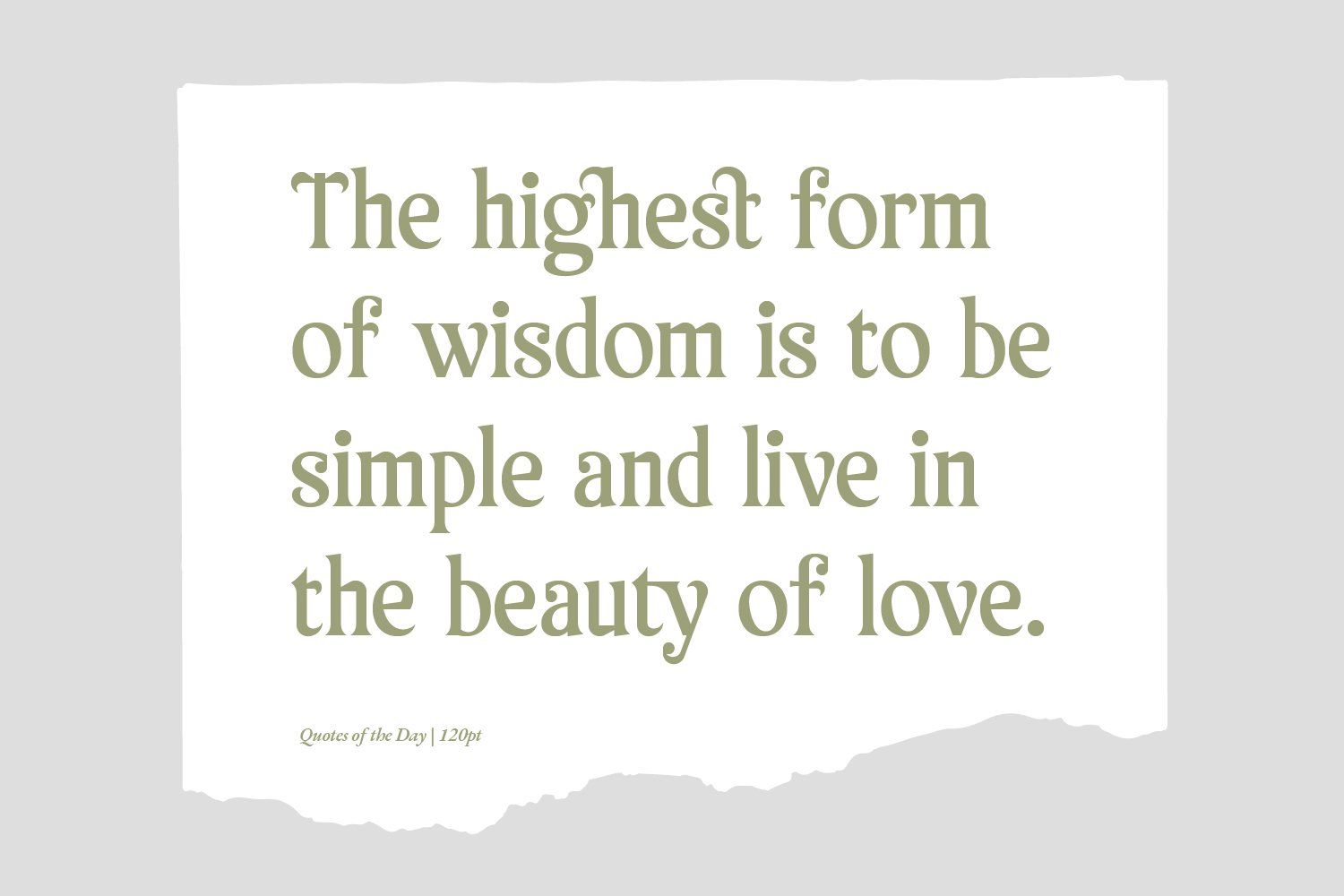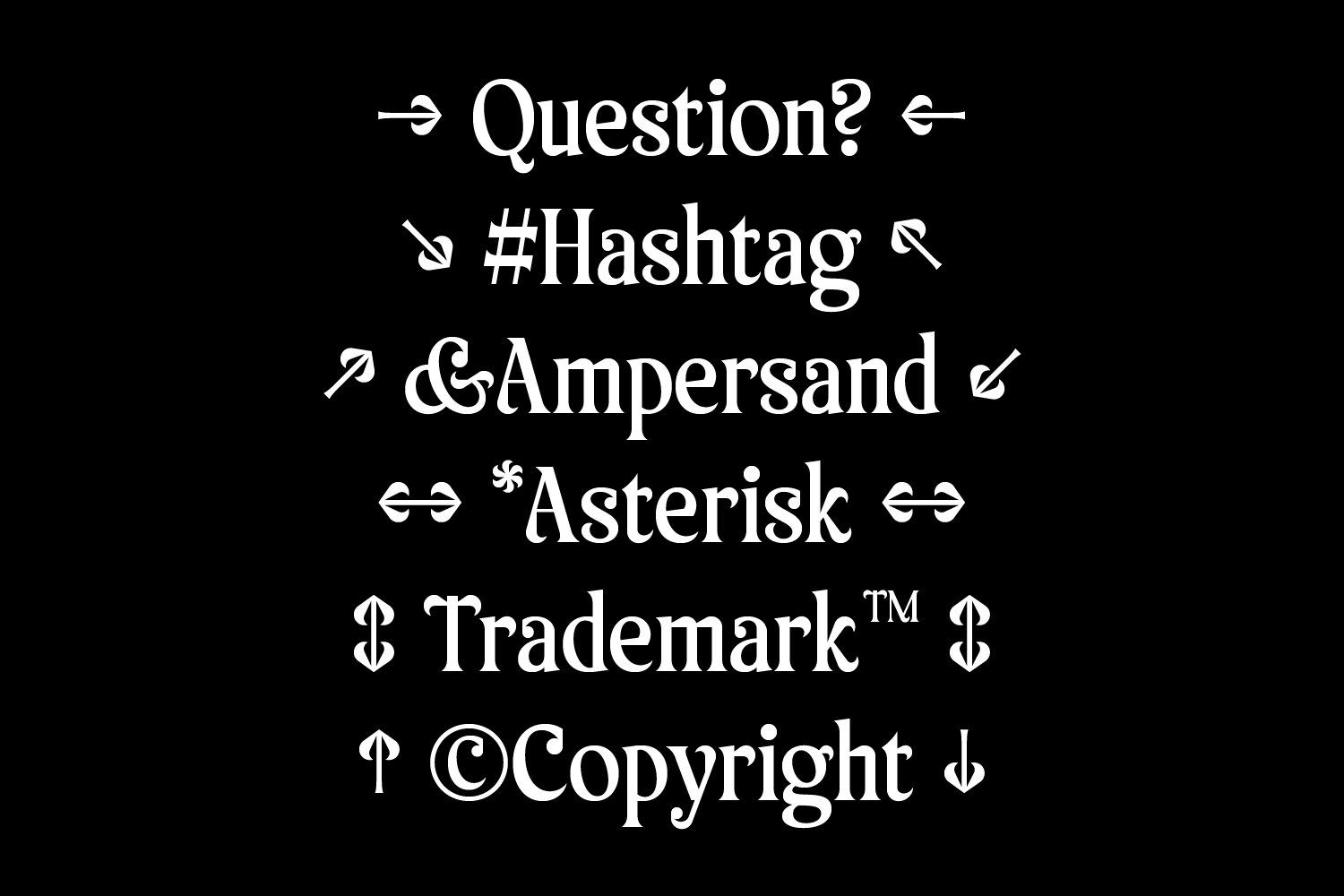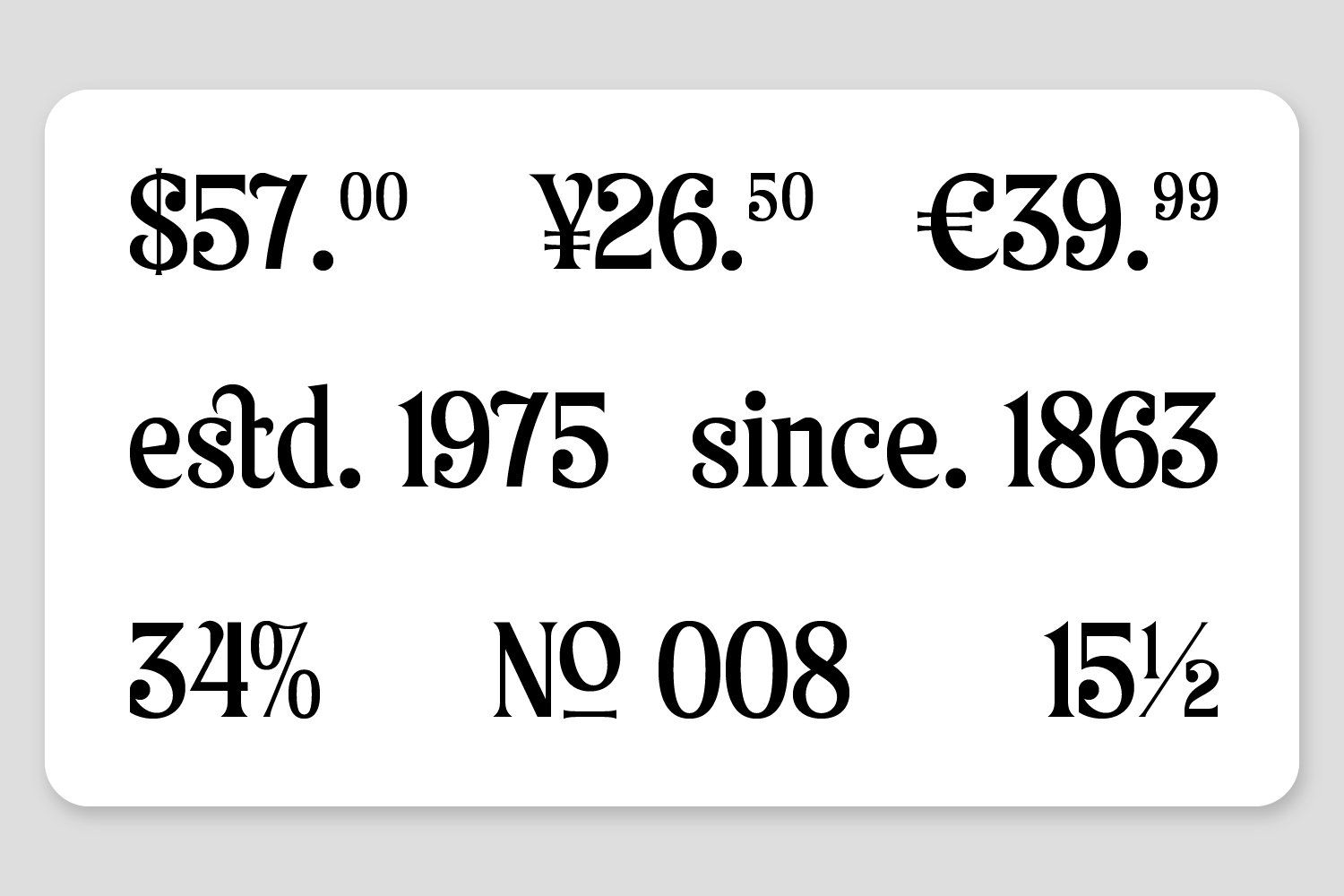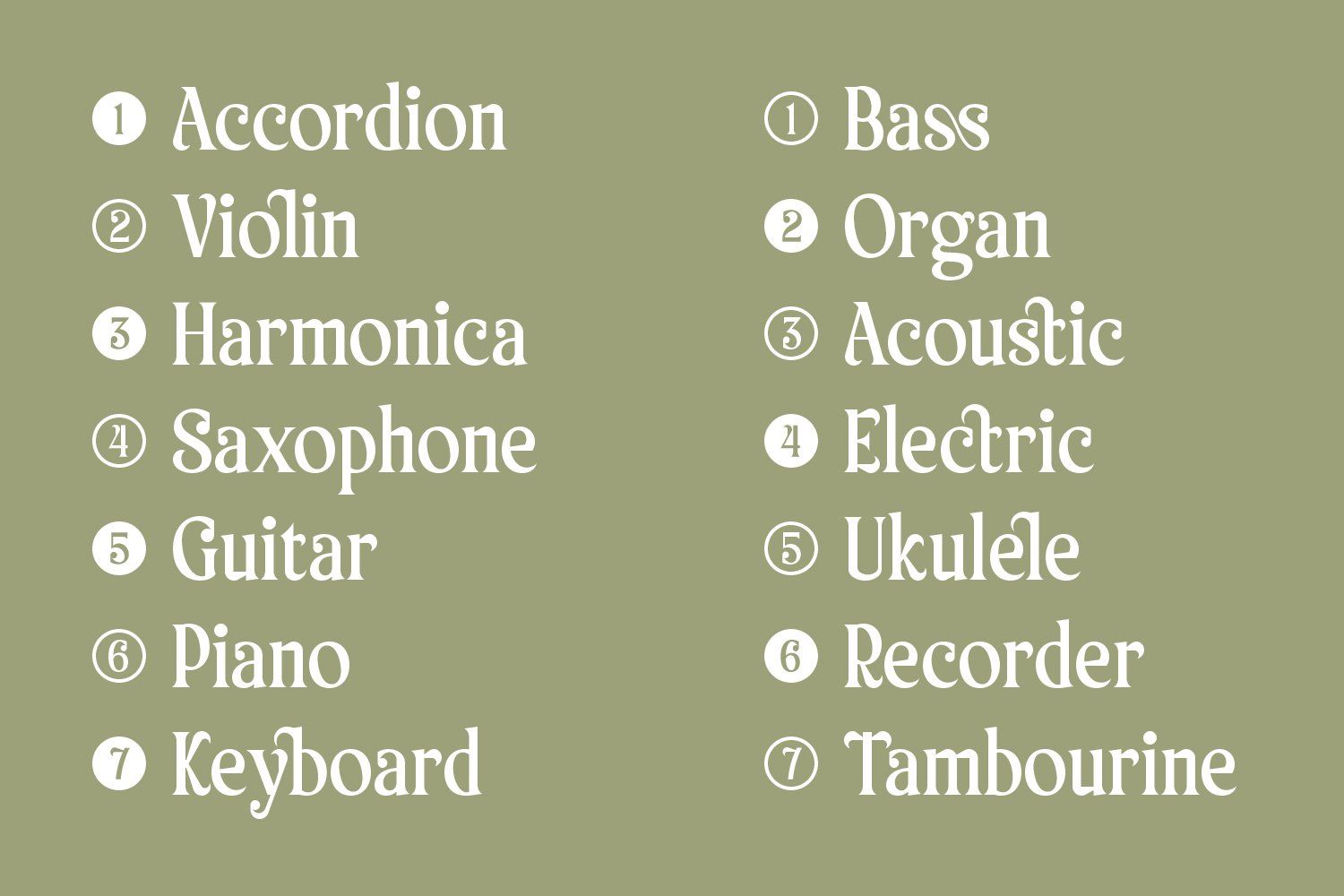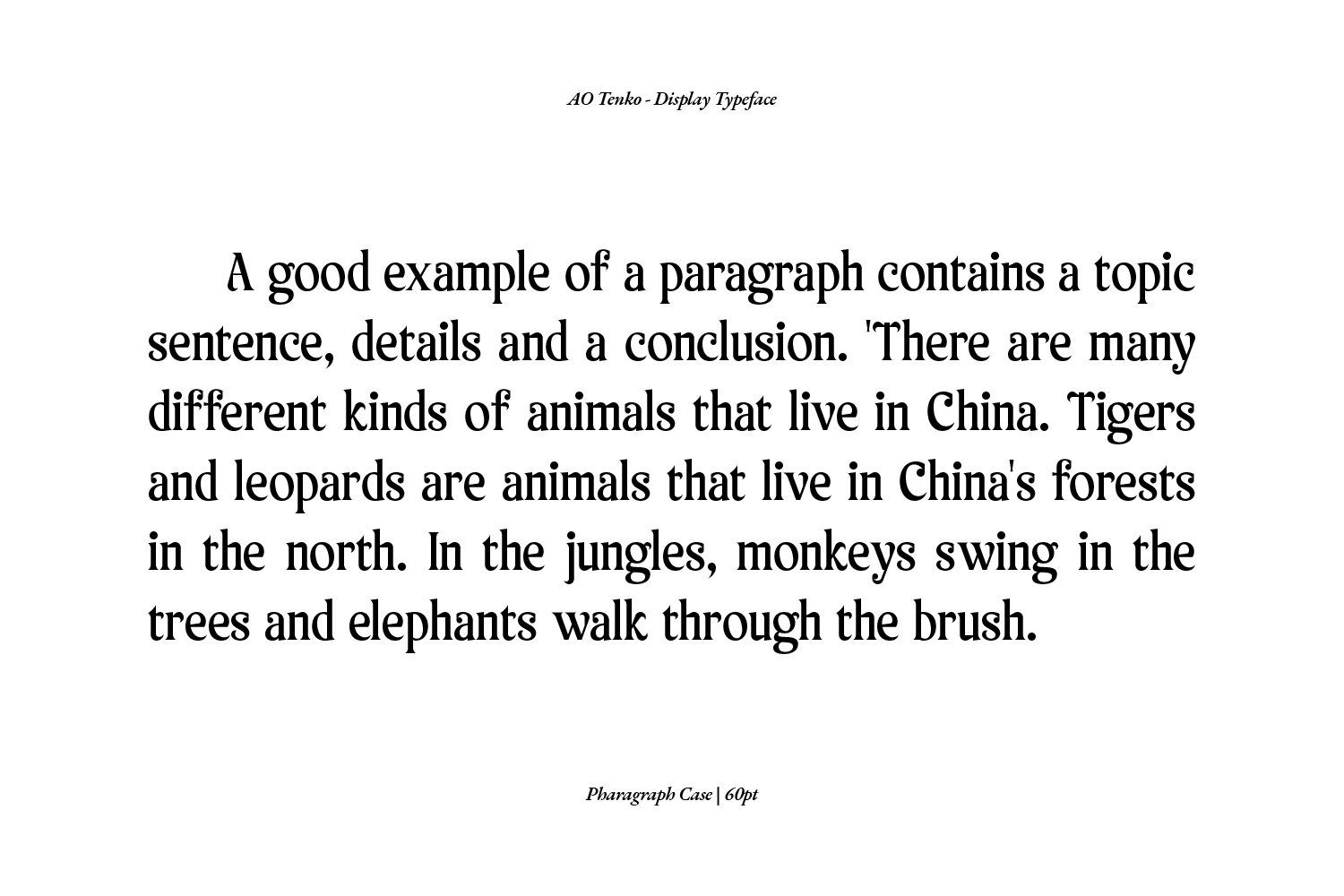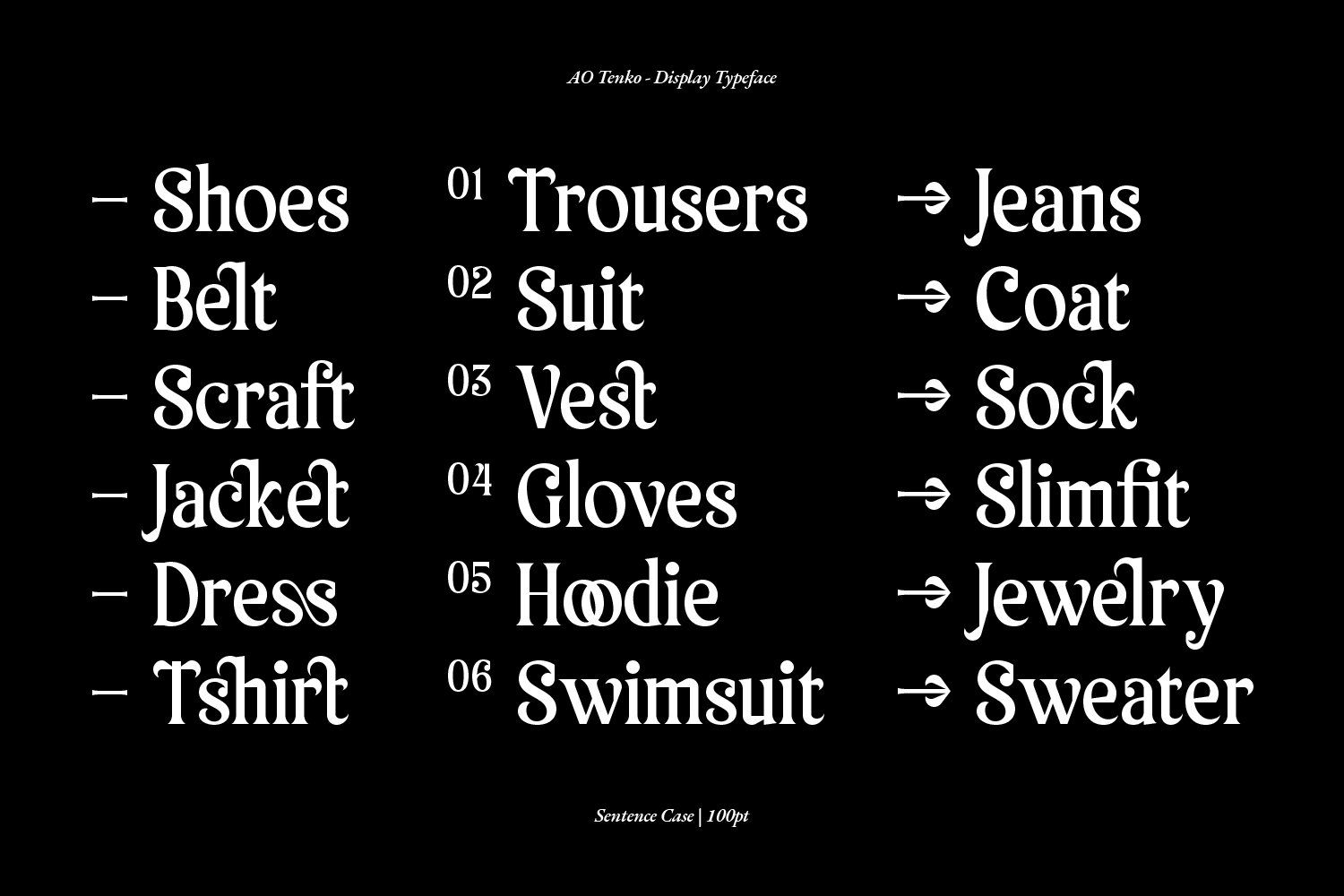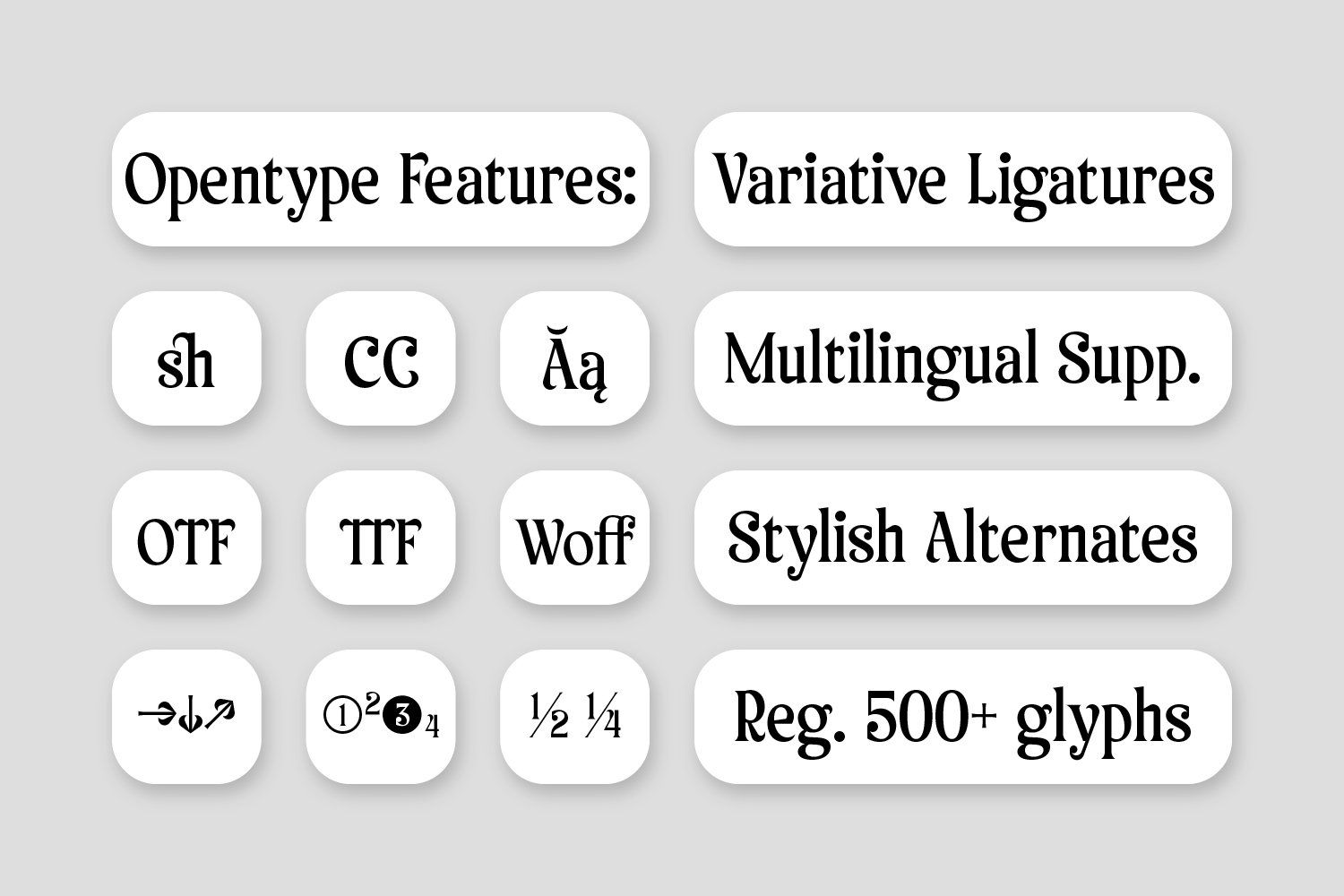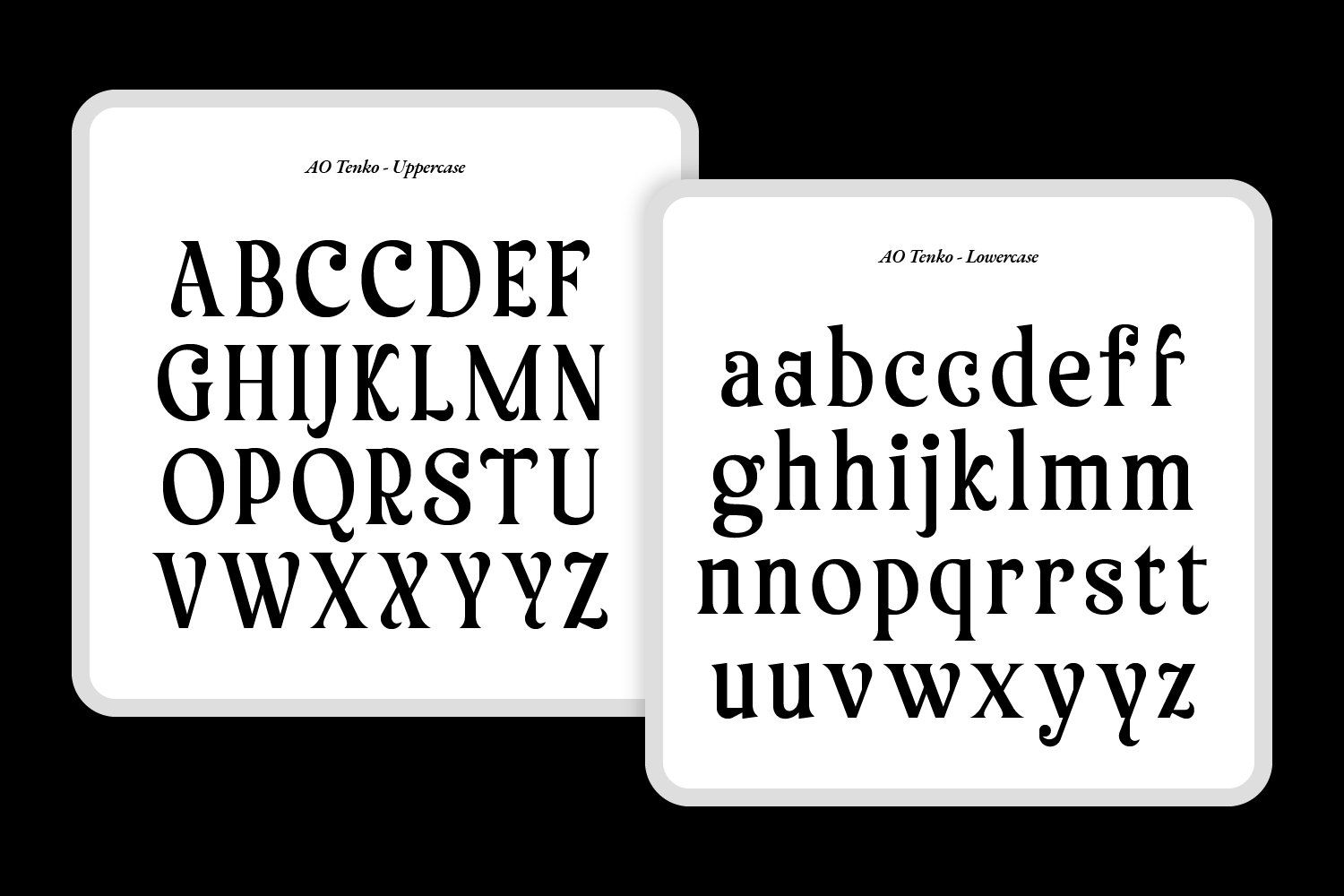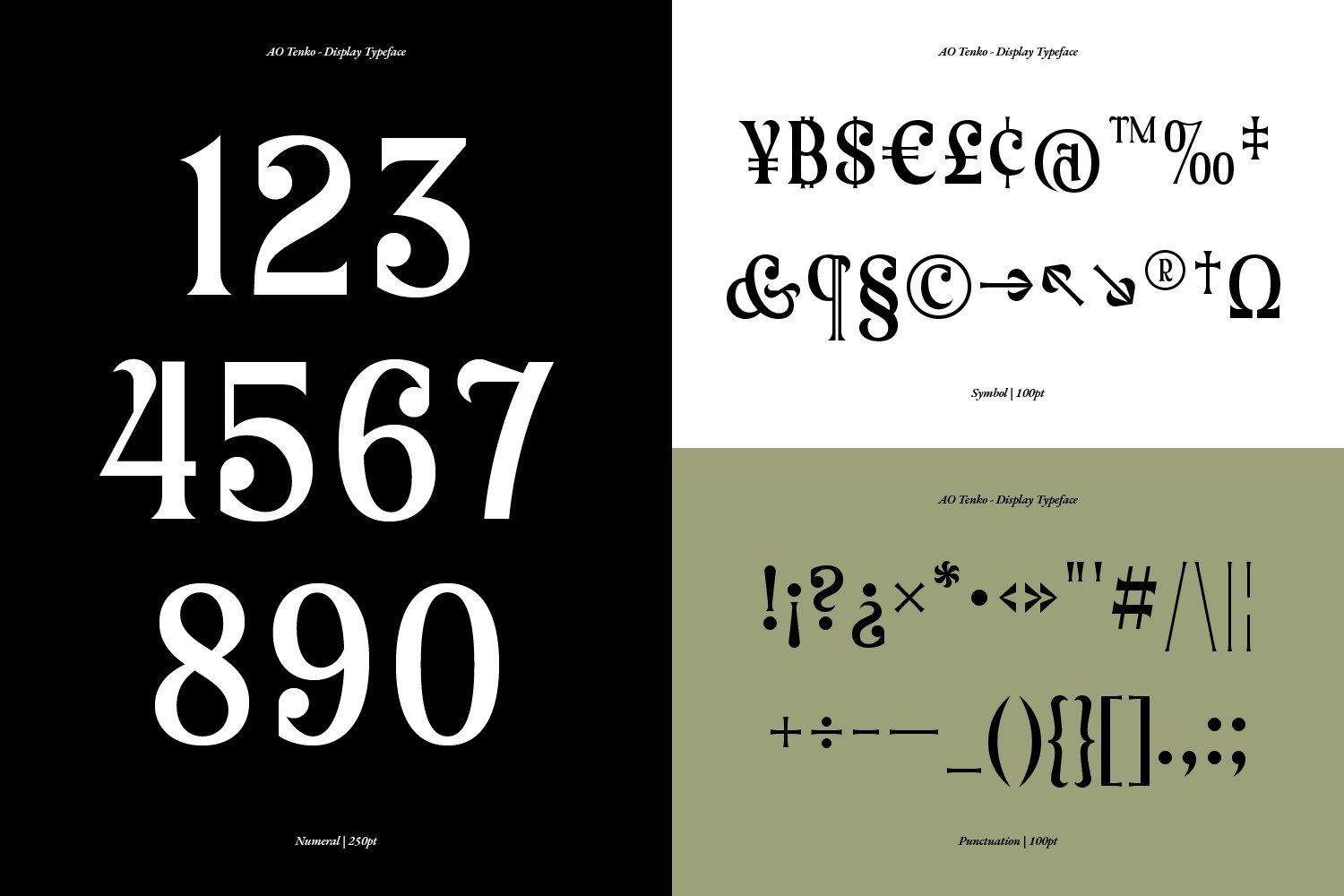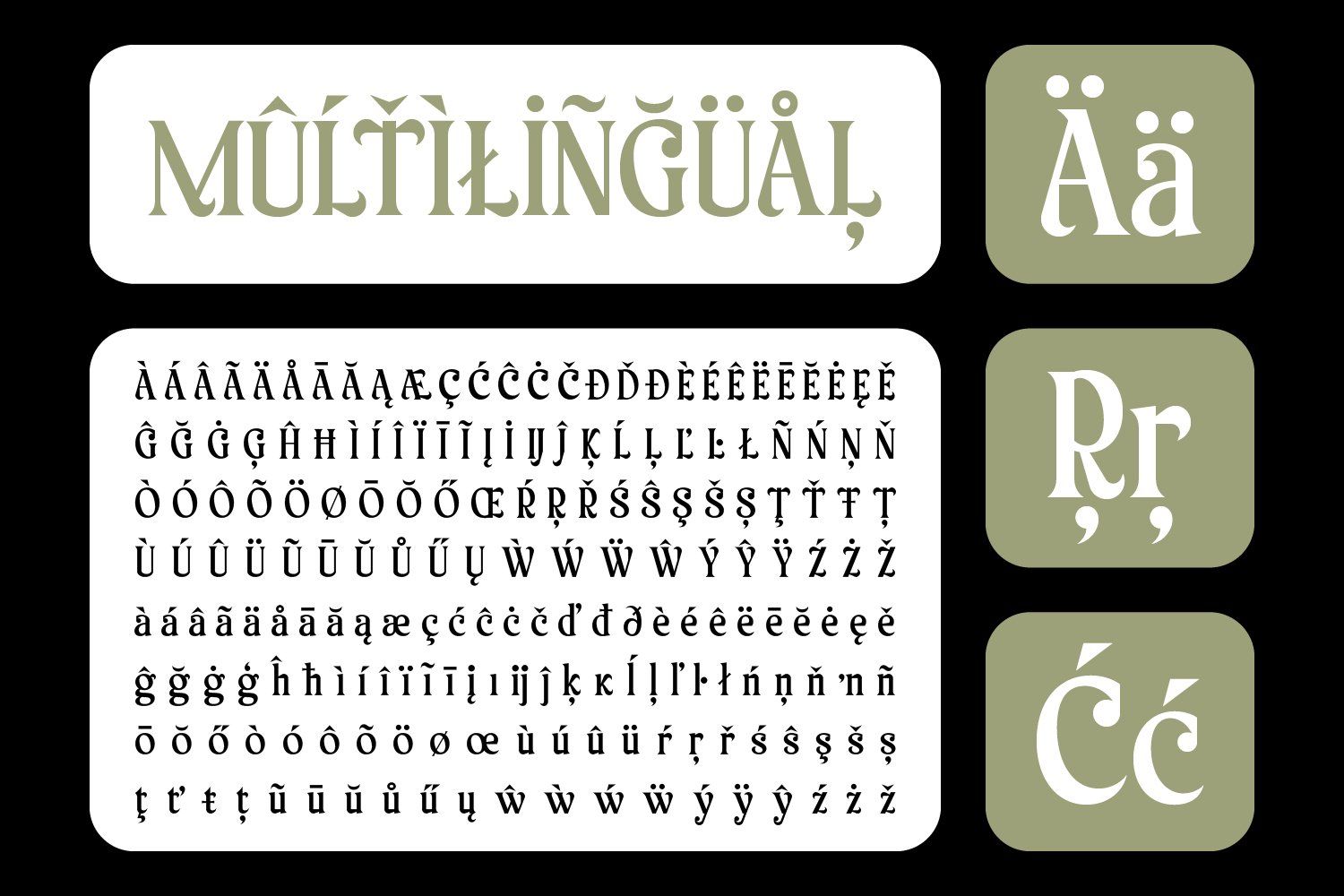
Proudly present AO Tenko Display Typeface, a serif font designed for a versatile and stylish looks.
This font features a full set of uppercase letters, multilingual symbols, numerals, fractions, punctuations and etc, making it perfect for a wide range of design projects like a branding, social media, poster, book cover, or a website design.